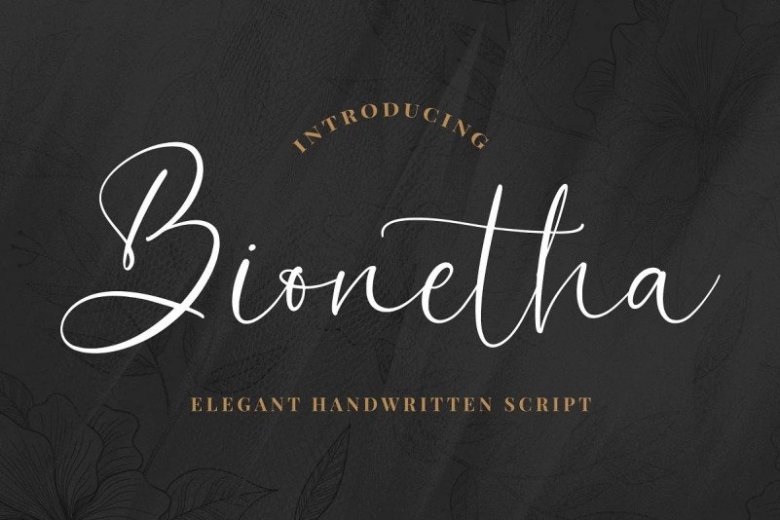
Bionetha Font
Bionetha Font is a modern, feminine handwritten font, carefully crafted to become a true favorite. Letters are made with Sign on paper. Then scanned and carefully drawn into vector format.
Bionetha is perfect for homeware designs,branding projects, Logo, design, Quotes, Product packaging, Photography, Watermark.